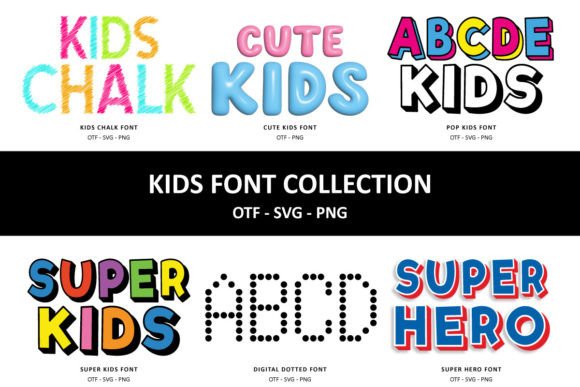
Kids Collection Font: A Comprehensive Bundle for Kids-Themed Crafts
Are you looking for a font that can add a playful touch to your kids-themed crafts? Look no further than the Kids Font Collection, a bundle of 14 eye-catching fonts that can help you create a variety of projects, from greeting cards and invitations to social media posts and logos. In this article, we’ll explore the features of the Kids Collection Font and how you can use it to take your crafting to the next level.
What is Kids Collection Font?
Kids Collection Font is a bundle of 14 unique fonts that are designed to capture the playful and imaginative spirit of childhood. Each font in the collection is carefully crafted to be both fun and legible, making them perfect for a wide range of kids-themed projects. Whether you’re a parent, teacher, or crafter, this font bundle is a must-have for anyone looking to add a personal touch to their creations.
Key Features of Kids Collection Font
- Character Set: The fonts in the Kids Collection Font bundle include the characters A-Z and 0-9, making them suitable for a wide range of projects.
What Can You Create with Kids Collection Font?
The possibilities are endless with the Kids Collection Font! Here are just a few ideas to get you started:
- Greeting Cards: Create personalized greeting cards for birthdays, holidays, and special occasions.
- Invitations: Design eye-catching invitations for kids’ parties, events, and activities.
- Social Media Posts: Add a playful touch to your social media posts with custom graphics and quotes.
- Logos: Create custom logos for kids-themed businesses, such as children’s clothing stores, toy stores, or kids’ restaurants.
- Crafting Projects: Use the Kids Collection Font to add a personal touch to your crafting projects, such as scrapbooking, card making, or DIY home decor.
Tips and Tricks
Here are a few tips and tricks to help you get the most out of the Kids Collection Font:
- Experiment with Different Fonts: Try out different fonts in the Kids Collection Font bundle to find the one that works best for your project.
- Mix and Match: Mix and match different fonts and colors to create a unique and eye-catching design.
The Kids Collection Font is a versatile and fun font bundle that is perfect for anyone looking to add a playful touch to their kids-themed crafts. With 14 unique fonts, bonus files, and compatibility with a range of design programs, this font bundle is a must-have for crafters, parents, and teachers. Whether you’re creating greeting cards, invitations, social media posts, or logos, the Kids Collection Font is sure to inspire your creativity and help you create something truly special.